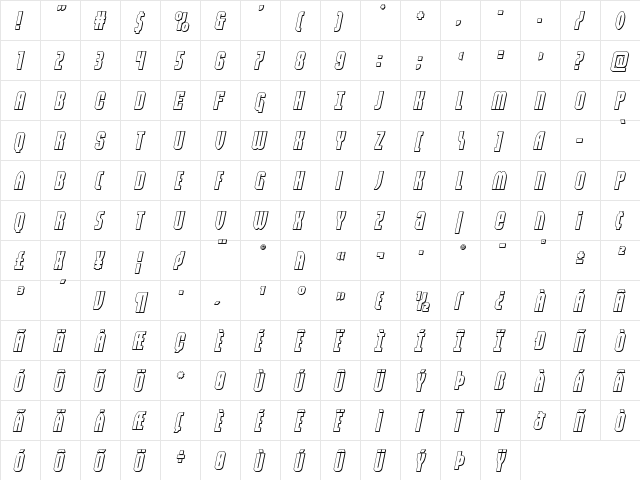
Valiant Times 3D Italic Regular
Design Context for Valiant Times 3D Italic Typeface
Valiant Times 3D Italic is a composed and adaptable typeface that performs quietly and consistently across a wide range of design contexts. The dynamic lean of this cut emphasises speed and emphasis in any layout.
Pro Tip: Use Valiant Times 3D Italic for emphasis, pull quotes, and subheadings where its slanted energy can add rhythm to the layout.